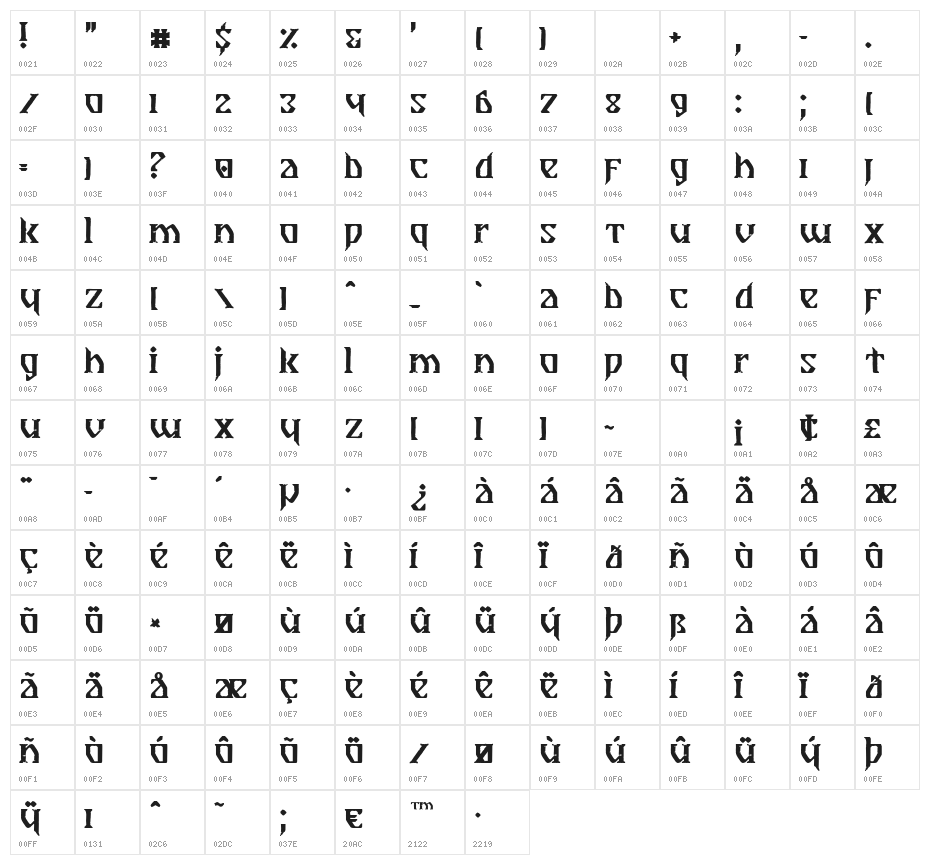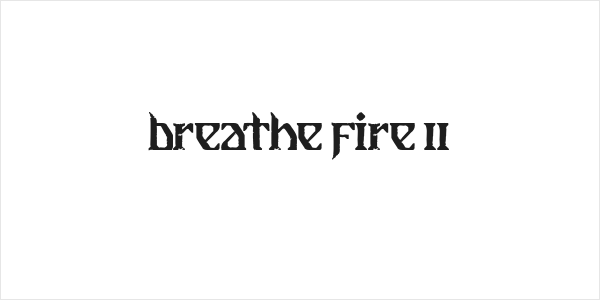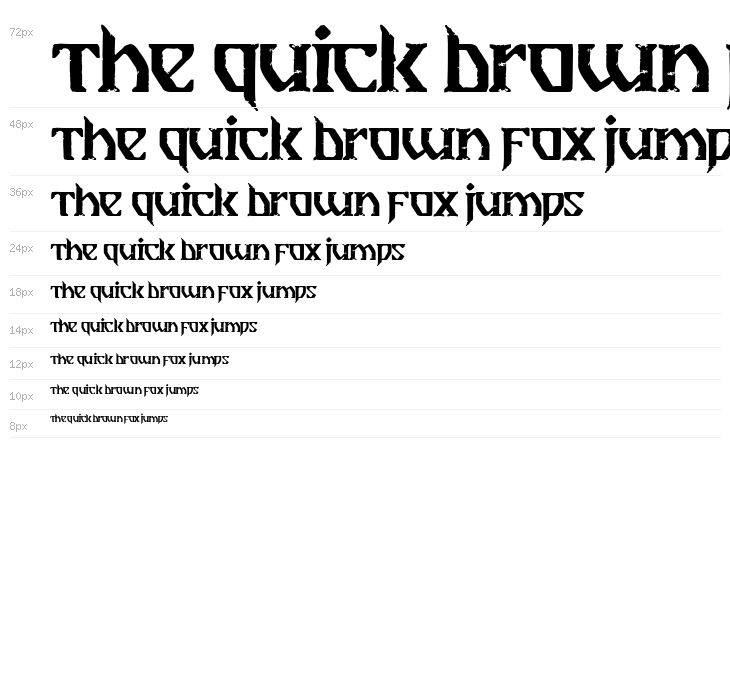
Breathe Fire II Font
Breathe Fire II Description
This font features a bold and aggressive design with sharp, angular edges and a distinct Gothic influence. The characters are heavily stylized, with a rugged and distressed appearance that suggests a sense of intensity and drama. The uppercase and lowercase letters maintain a consistent style, with exaggerated serifs and pointed terminals that enhance the font's fierce aesthetic. The numerals and special characters follow the same design principles, ensuring a cohesive look across all elements. This font is ideal for projects that require a strong, impactful visual presence.